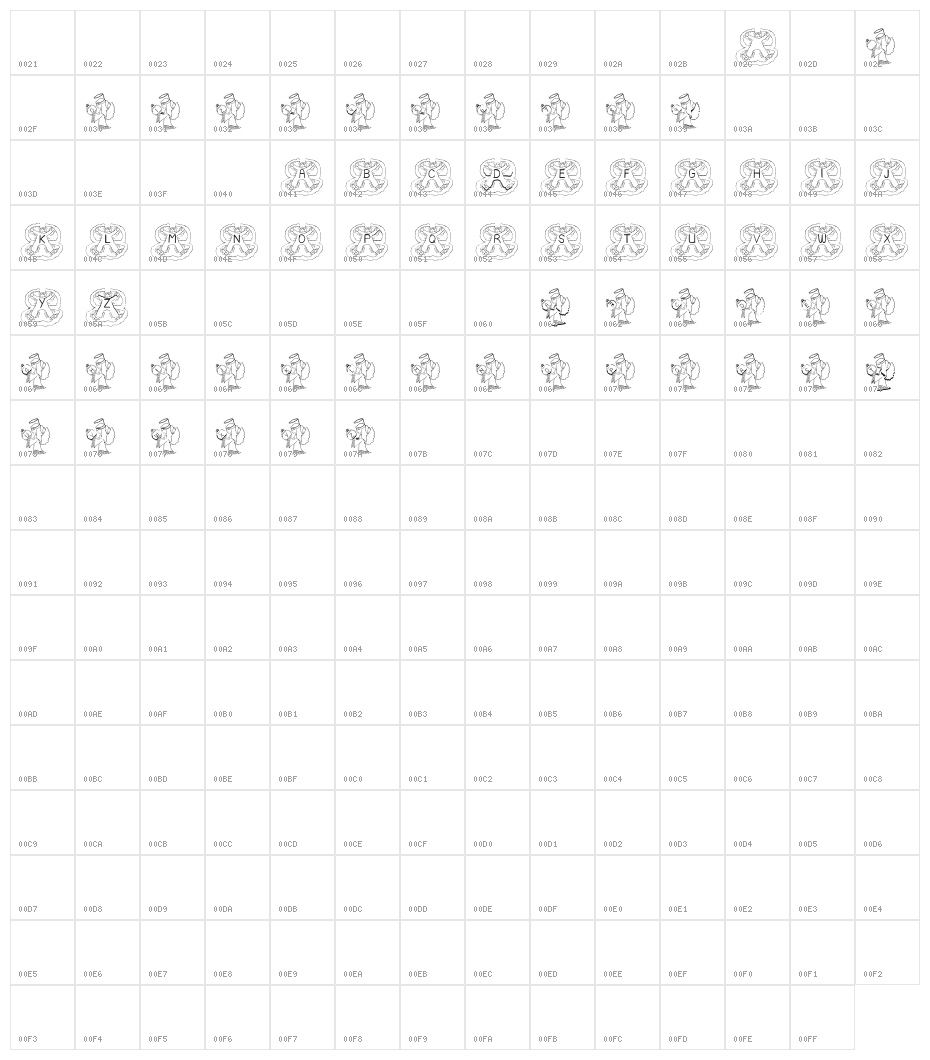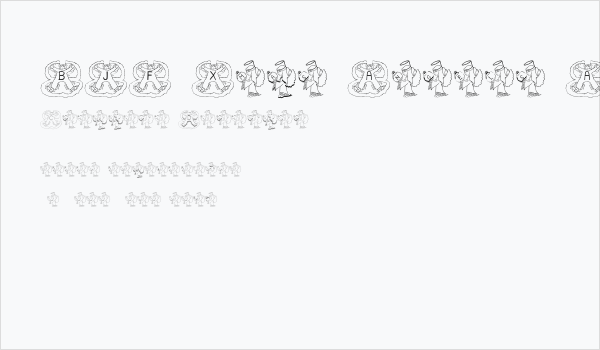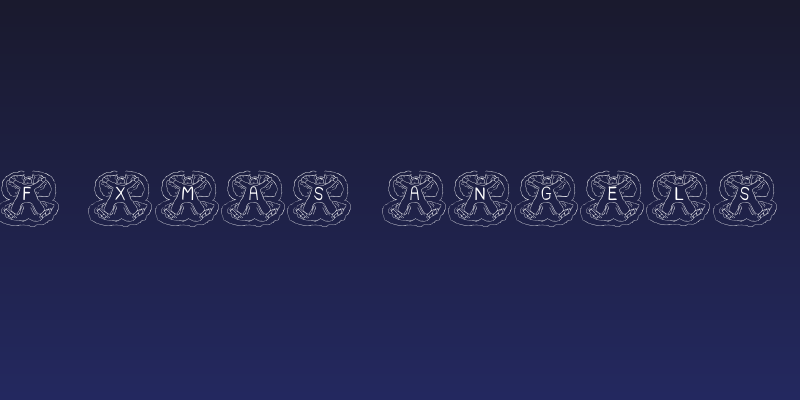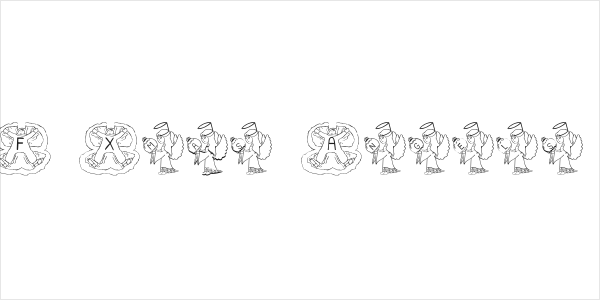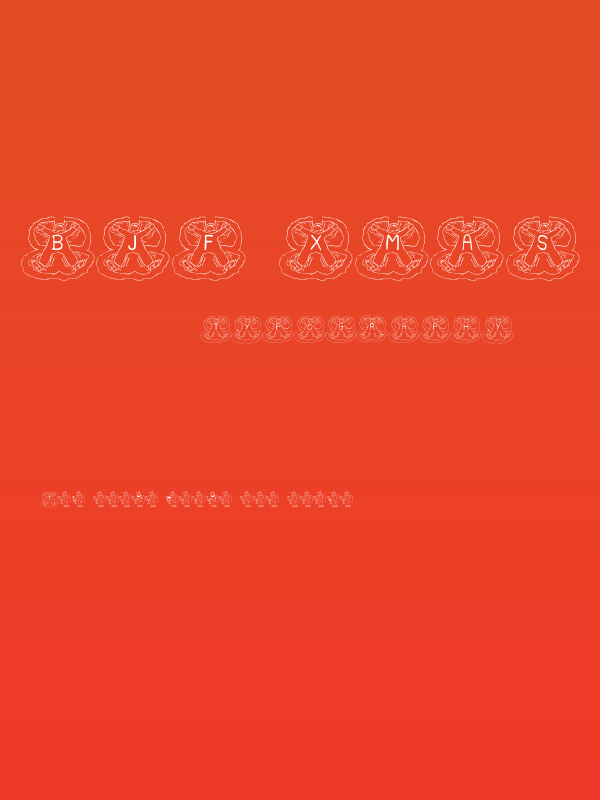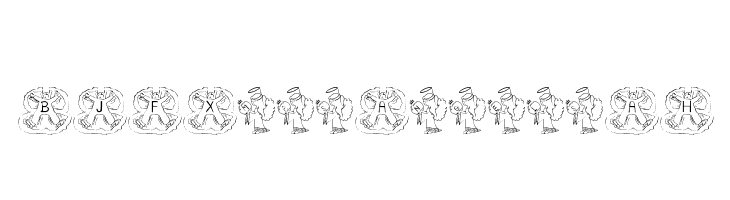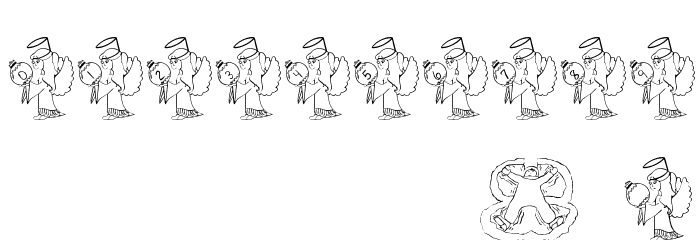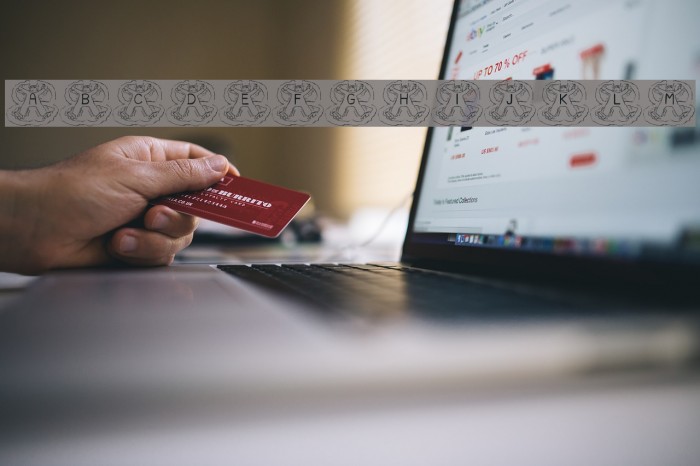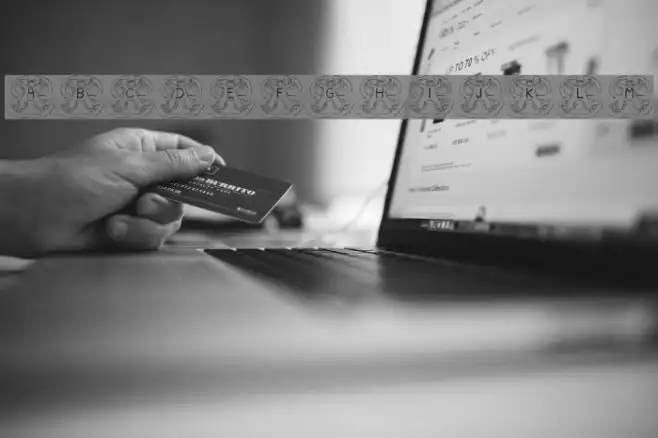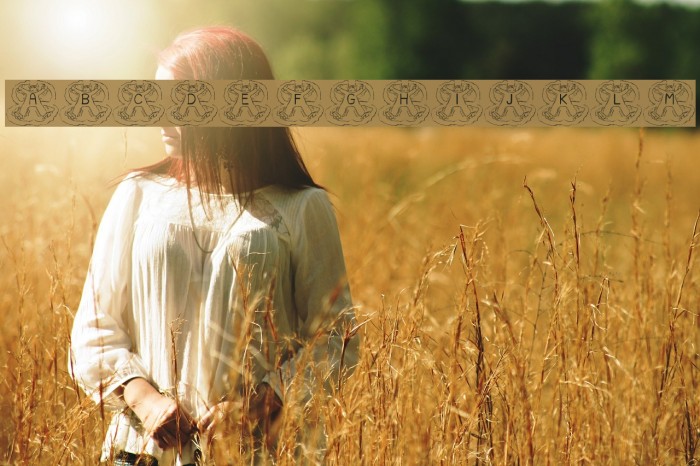
BJF Xmas Angels AH Font
BJF Xmas Angels AH Description
This decorative font features whimsical angel illustrations integrated with each letter, creating a festive and playful appearance. Each character is encased in a cloud-like border, enhancing the celestial theme. The uppercase letters are distinct, with each angel holding a letter, while the lowercase letters and numbers are represented by the same angelic figure, maintaining consistency in design. The special characters are creatively adapted to fit the angel motif, making this font ideal for holiday-themed projects.
| Proposed Projects | Ideal for holiday cards, festive invitations, Christmas-themed posters, and decorative crafts. |